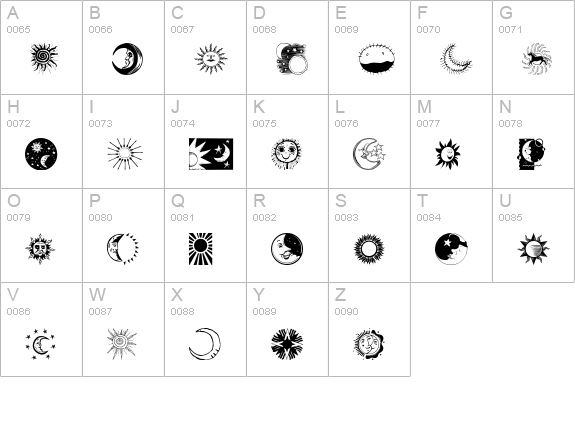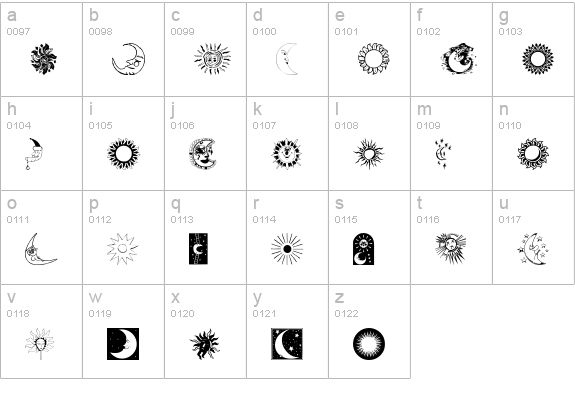
SunandMoon Font Details
Introducing SunandMoon font, a versatile and unique typeface that effortlessly combines the boldness of the sun with the elegance of the moon. This captivating font features a harmonious blend of modern and whimsical elements, making it perfect for a wide range of design projects. The SunandMoon font is not only visually stunning, but it is also incredibly versatile, making it suitable for both headings and body text. Its smooth curves and intricate details add a touch of sophistication to any project, while its bold presence ensures that your message will be conveyed with impact. Best of all, the SunandMoon font is completely free to download at FontsMarket.com. So whether you're working on a branding project, creating social media graphics, or designing a website, this font is sure to elevate your designs and make them stand out from the crowd. Embrace the beauty of the SunandMoon font and let your creativity shine!